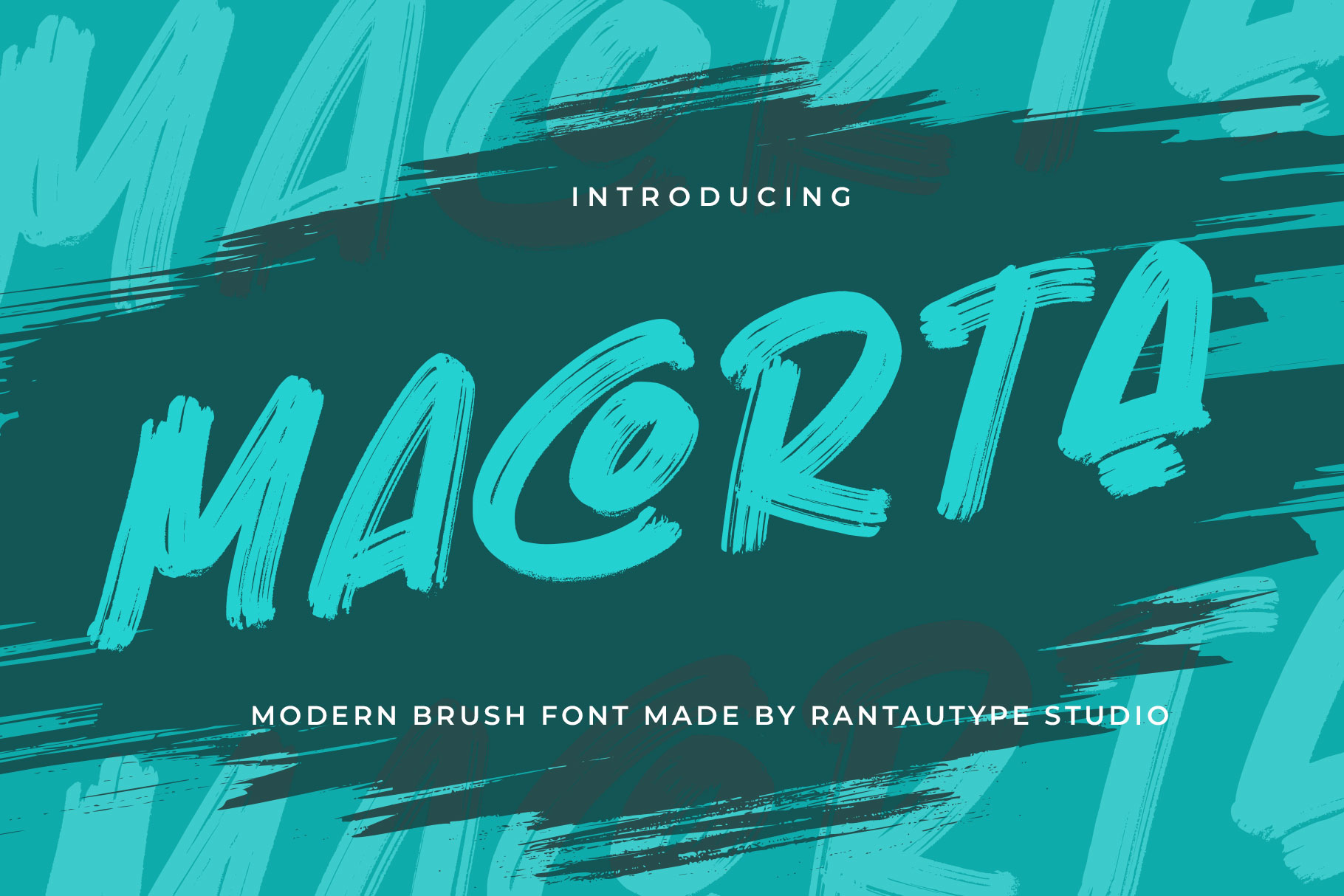
Macorta Modern Brush Font
Macorta is modern brush font with bold and stylish texture. Macorta is a perfectly choice for any creative endeavor, creating, modern, chic, lifestyle design such as logotype, title, cover, branding, invitations, wedding designs, display and magazine, social media posts, advertisements, printed quotes, product packaging, corporate brand, product designs, labels, photography, watermarks, special events and any other project with handwritten touch.